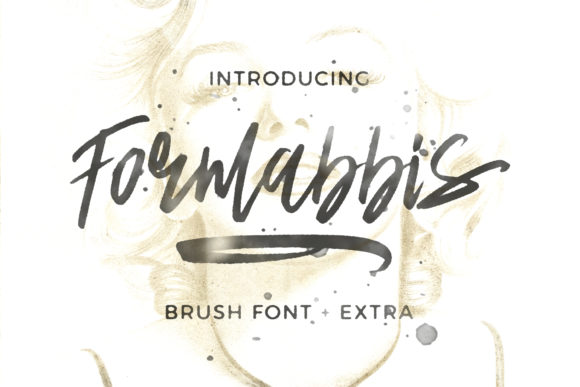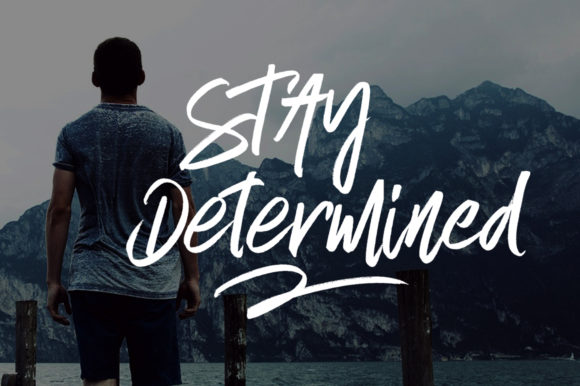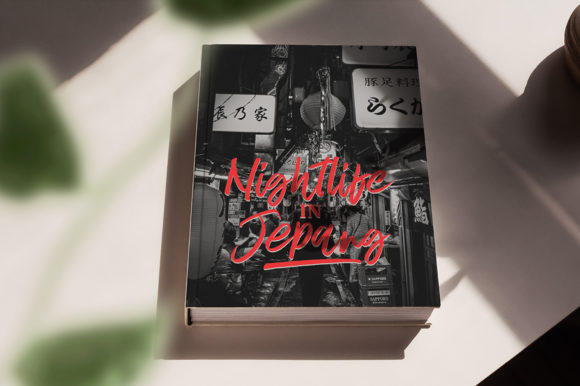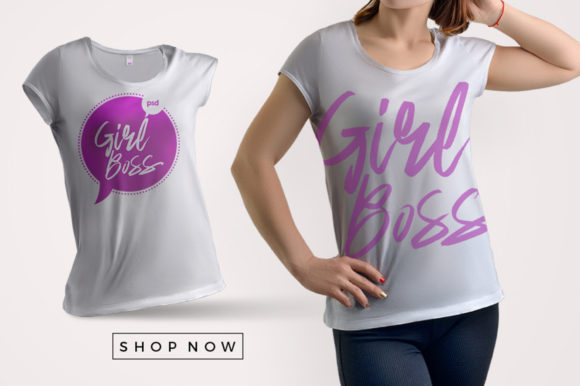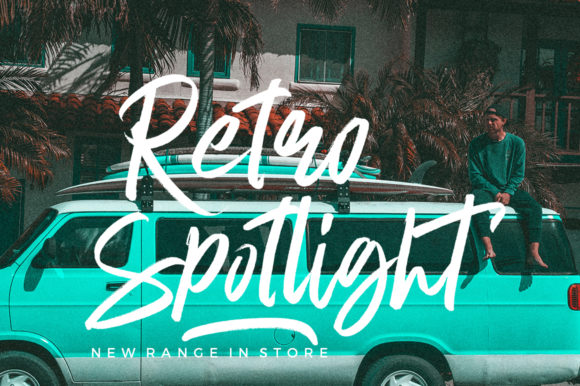
About Formabbis Font
The Formabbis is a set of 2 handmade pen markers, designed to be combined perfectly. It allows you to create amazing handwritten designs easily. It includes a bonus swash set, ideal for giving your text the final touch of elegance!